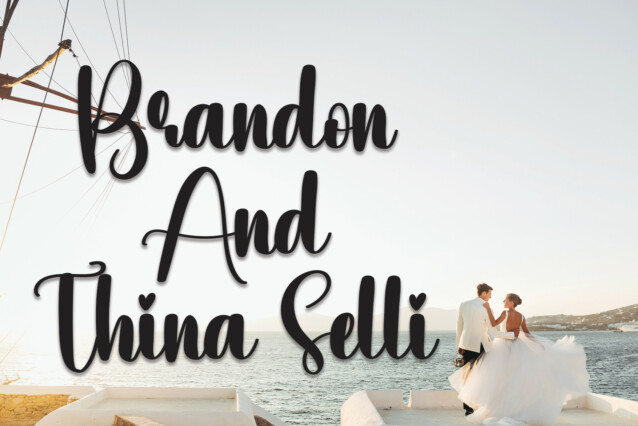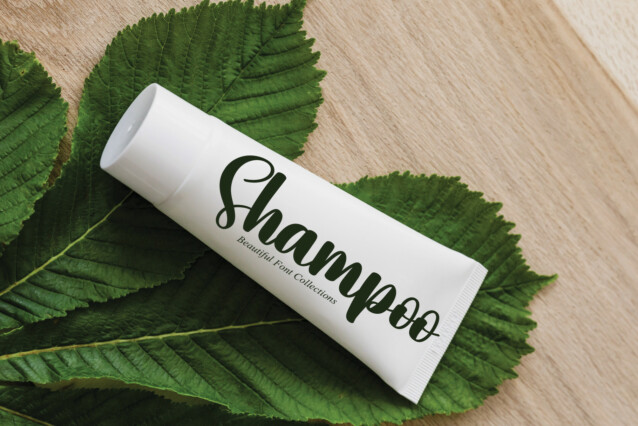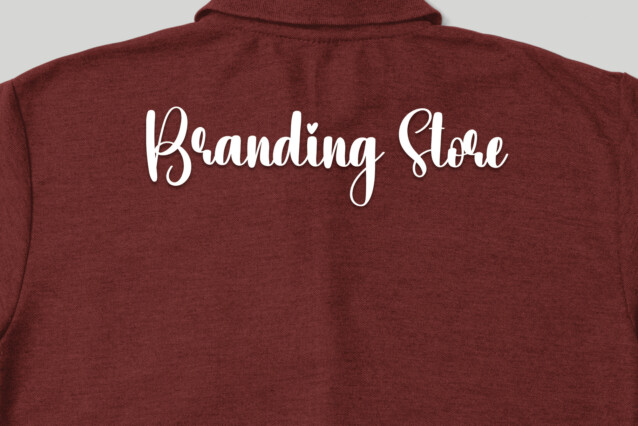
Warm Script Font
Warm Script Font is a modern handwritten font. Its latest style letters are perfect for wall displays, wedding invitations, social media post logos, advertisements, product packaging, product designs, labels, photography, watermarks, invitations, stationery, and any project that requires handwritten typography.